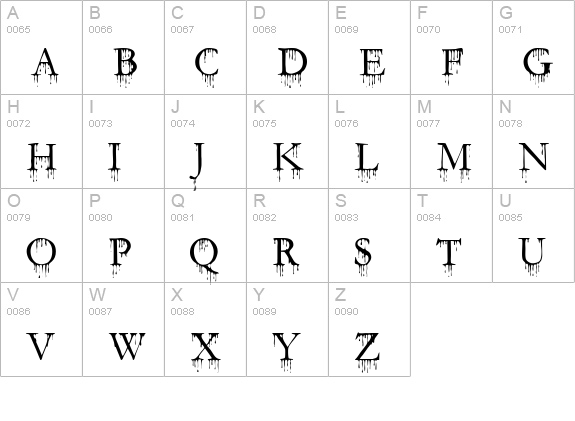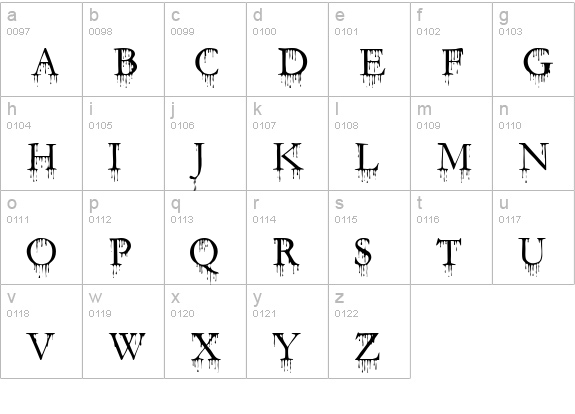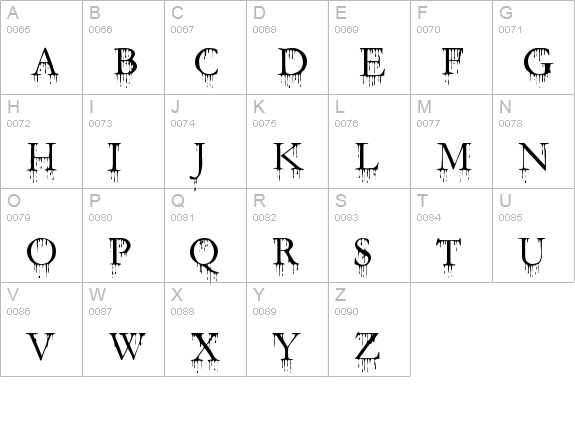
SF Gushing Meadow SC Font Details
SF Gushing Meadow SC is a breathtakingly elegant font that will transport you to a world of sophistication and charm. Its delicate strokes and intricate details make it the perfect choice for any design project that requires a touch of class. With its versatile style, SF Gushing Meadow SC can be used for both formal and informal settings, adding a touch of refinement to invitations, wedding stationery, logos, and more. Its slender letterforms and graceful curves exude a sense of grace and elegance that is sure to captivate your audience. But what truly sets SF Gushing Meadow SC apart is its unique and captivating design. Each letter is meticulously crafted, with special attention given to the smallest details. From the subtle serifs to the perfectly balanced letter spacing, this font is a testament to the skill and artistry of its creator. And the best part? SF Gushing Meadow SC is completely free to download at FontsMarket.com. Yes, you read that right - this exquisite font can be yours without having to spend a dime. So whether you're a professional designer looking to add a touch of sophistication to your work, or an enthusiast who simply appreciates beautiful typography, SF Gushing Meadow SC is the perfect choice. Don't miss out on this opportunity to elevate your designs with a font that is both stunning and free. Download SF Gushing Meadow SC today and let its beauty speak for itself.